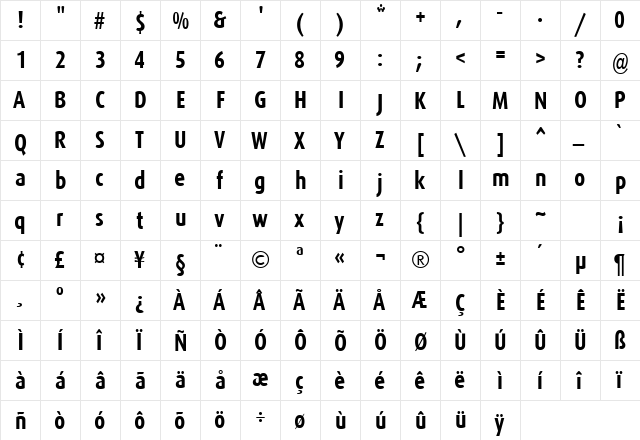
DaxCondensed-Bold Regular
Design Context for DaxCondensed-Bold Typeface
DaxCondensed-Bold takes a measured approach to typography — its balanced proportions and neutral character make it a reliable workhorse for both digital and print work. The heavy weight commands attention and anchors typographic hierarchies. Its narrow stance lets it pack a punch even in space-constrained designs.